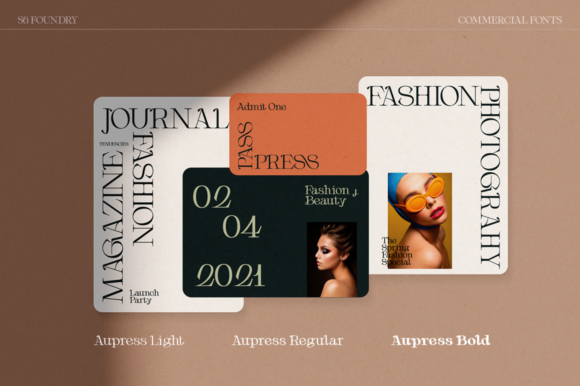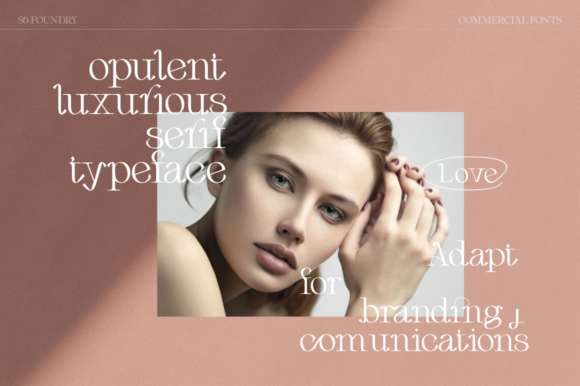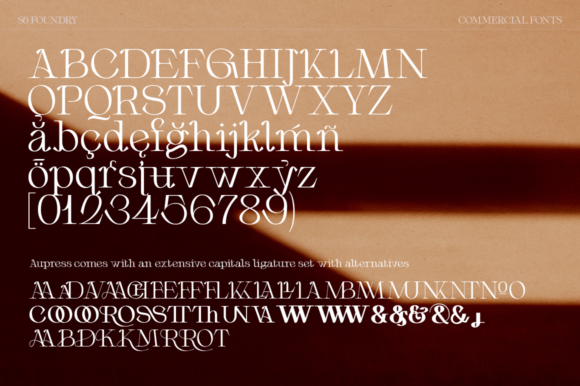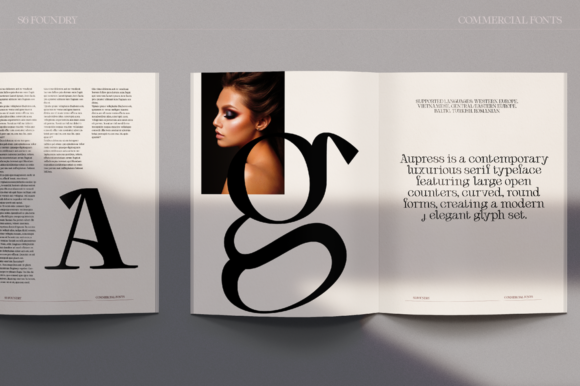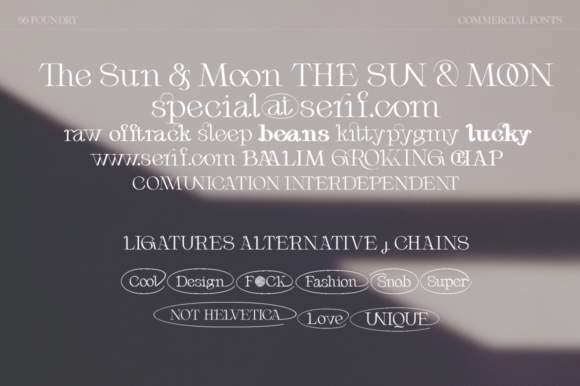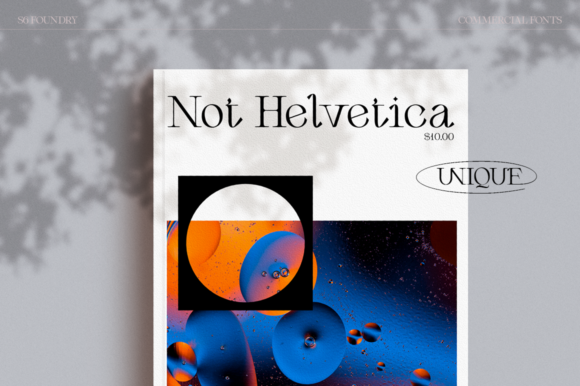
Discover the Timeless Elegance of Aupress Font
There’s something magical about seeing a design come together – the spark of inspiration, the click of the ‘save’ button, and the thrill of sharing it with the world. As creatives, we’ve all been there, and it’s moments like these that make all the hard work worth it. But, let’s be honest, the right font can make all the difference in elevating our designs from good to great.
That’s where the Aupress Font comes in – a sophisticated serif font designed to add a touch of sophistication and refinement to your projects. With its delicate yet balanced look, Aupress Font is perfect for designers seeking to create visually stunning pieces that exude elegance and poise. Whether you’re working on a high-end branding project or a luxurious publication, Aupress Font is sure to make a lasting impression.
So, why is Aupress Font so valuable for designers? Simply put, it offers a level of sophistication and refinement that’s hard to find in other fonts. Its unique blend of delicacy and balance makes it an ideal choice for projects where aesthetics are paramount.
Aupress Font Key Features
- Unique Characteristics: Aupress Font features a unique blend of modern and vintage elements, with intricate details and subtle texture, making it perfect for creative and artistic projects.
Aupress Font Review
I recently had the chance to work with the Aupress font, and I wanted to share my honest thoughts on this font. ✨ First, let’s talk about what works well.
- Unique aesthetic: Aupress has a distinct, elegant feel that sets it apart from more generic fonts.
- Legibility: The font is easy to read, even at smaller sizes.
- Style versatility: Aupress can be used for both formal and informal projects.
However, there are some limitations to consider. ⚠️
- Limited language support: Aupress may not be optimized for certain languages, which could affect its appearance.
- Not suitable for body text: While Aupress works well for headings and titles, it’s not the best choice for large blocks of body text.
Overall, I think Aupress is a great choice for designers who want to add some visual interest to their projects. While it may not be perfect, its unique aesthetic and legibility make it a solid option for the right use cases.
Aupress Font is ideal for:
- Headings and titles in graphic designs and presentations.
- Watercolor backgrounds to add a touch of whimsy and elegance
- Hand-drawn illustrations to complement the font styles
- Photos or textures to add visual interest and texture
- A simple and elegant background color or texture
- A stylized illustration or icon that complements the quote’s theme
- A minimalist border or frame to add a touch of sophistication